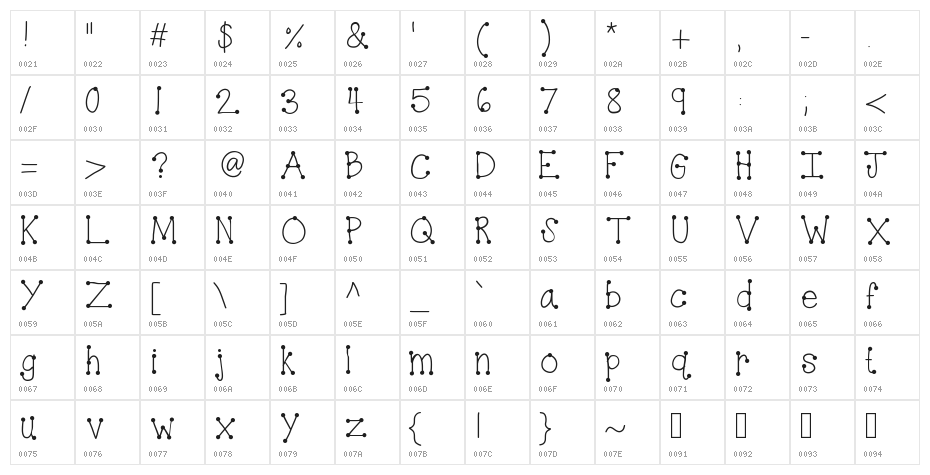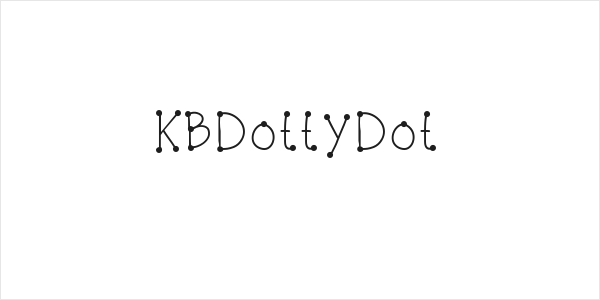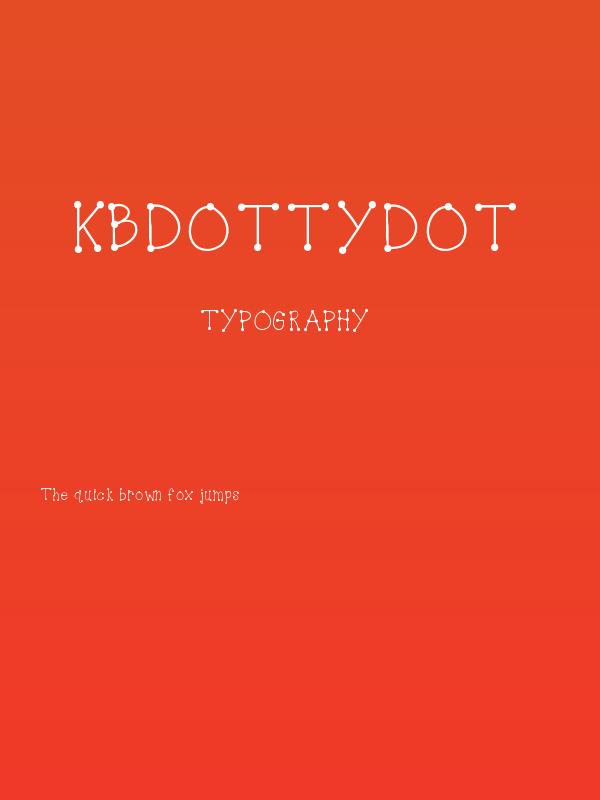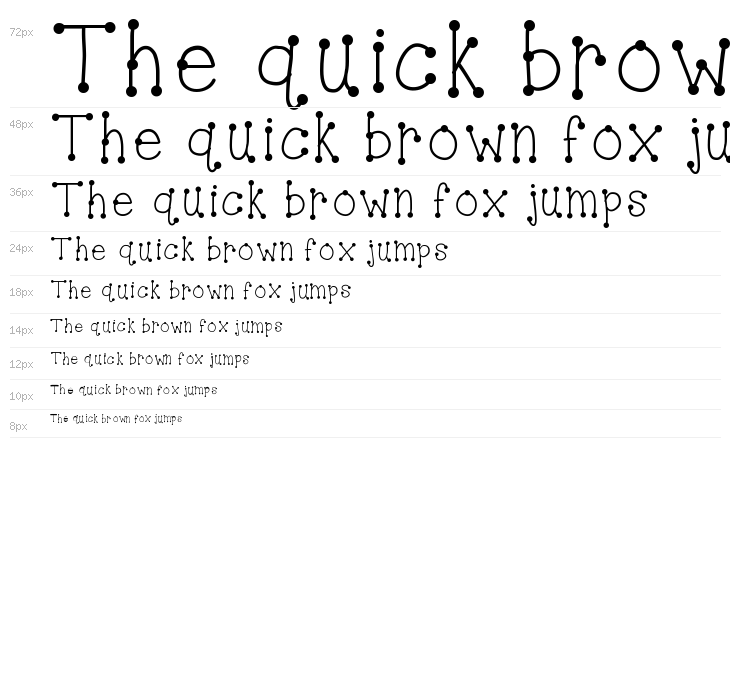
KBDottyDot Font
KBDottyDot Description
This playful and whimsical font features a unique dotted design, where each character is composed of lines connected by circular dots. The overall appearance is light-hearted and fun, making it ideal for creative and informal projects. The uppercase and lowercase letters maintain a consistent style, with rounded edges and a friendly demeanor. Numbers and special characters follow the same dotted pattern, ensuring a cohesive look across all text elements. The font's distinct style makes it stand out, perfect for adding a touch of personality to any design.
| Overall Style | Whimsical |
| Use Case | Headlines, Logos, Creative designs |
| Proposed Projects | Children's books, greeting cards, playful branding, educational materials. |